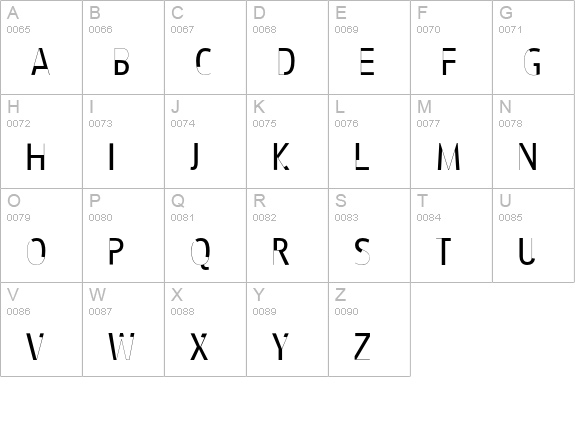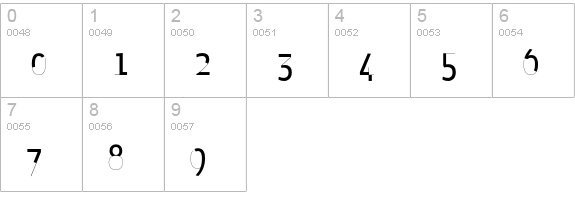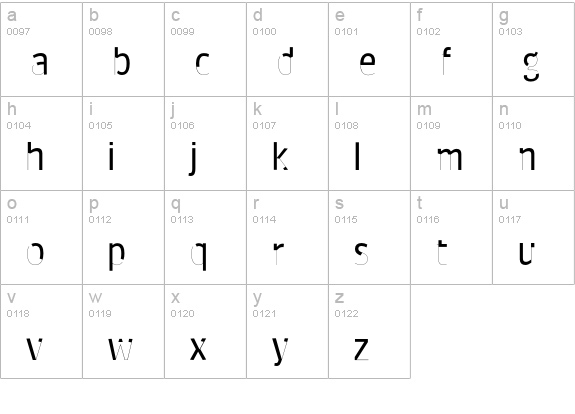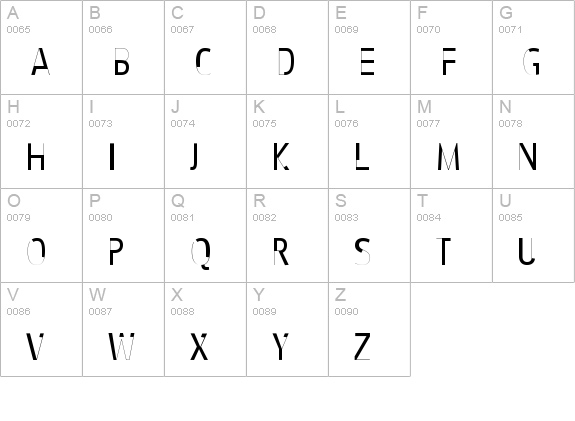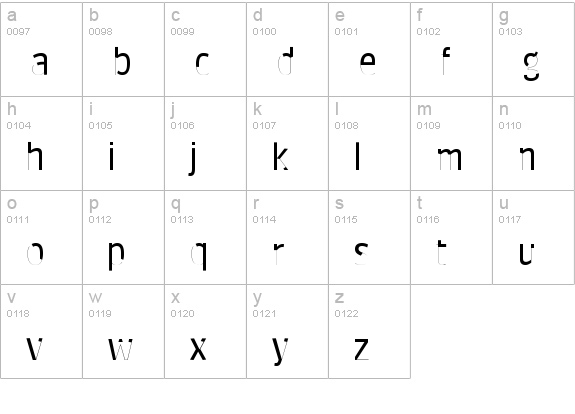
SaharaEF-Light Font Details
SaharaEF-Light is a refined, elegant variant in the SaharaEF typeface family \xE2\x80\x94 well suited to elegant body text, refined sub-headings, and luxury branding.
SaharaEF-Light font is a stunningly elegant and effortlessly stylish typeface that exudes a sense of class and sophistication. Its delicate strokes and graceful curves make it a perfect choice for any design project that requires a touch of refinement and grace. With its light weight and slender proportions, SaharaEF-Light font adds a sense of airiness and effortless beauty to any text or headline. Whether used in print or digital media, this font captures attention and commands respect with its timeless appeal. One of the best things about SaharaEF-Light font is that it is free! That's right, this extraordinary font is freely available to download at FontsMarket.com. So, you can bring a touch of elegance and professionalism to your designs without breaking the bank. Whether you are designing a logo, creating a brand identity, or working on a personal project, SaharaEF-Light font is sure to elevate your work to new heights. Its versatility allows it to be used in a wide range of applications, from fashion and beauty to editorial and advertising. So why wait? Go ahead and download SaharaEF-Light font from FontsMarket.com today and experience the beauty and impact it can bring to your design projects. With its timeless charm and free availability, this font is a must-have for any designer or creative professional. Let SaharaEF-Light font be the secret weapon that takes your designs from ordinary to extraordinary.